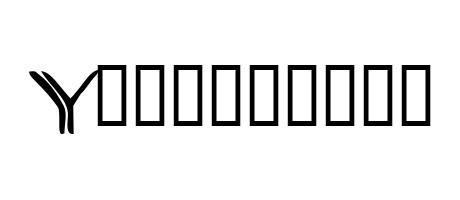
Yonkerismo
By Spork Thug Typography
Yonkerismo: A bold, graphic typeface. Its unique character is defined by the strong, almost architectural, Y, which acts as a distinctive visual anchor. The remaining characters are simple, rectangular forms, creating a striking contrast and a slightly futuristic feel. The overall effect is minimalist yet memorable.